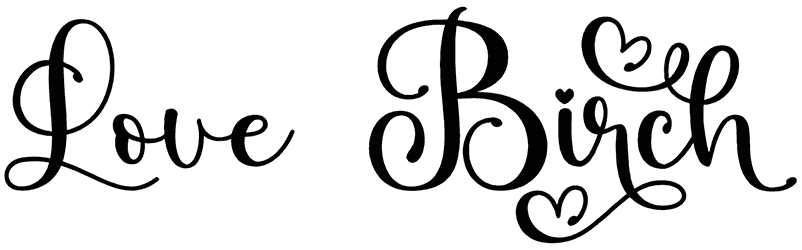
Love Birch Font
Eye-catching words will make your viewers love what they read and become memorable; that’s the outcome of using this love font. This adorable calligraphy font is capable of throwing some charming vibe into your layout. L…
Eye-catching words will make your viewers love what they read and become memorable; that’s the outcome of using this love font. This adorable calligraphy font is capable of throwing some charming vibe into your layout. Love Birch font doesn’t cover numbers, but it is still an ace item for a wedding card, a romance book cover, or the like.